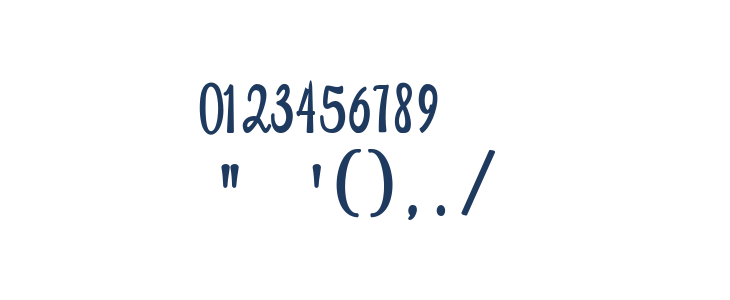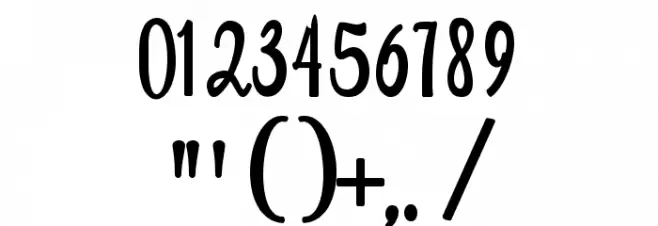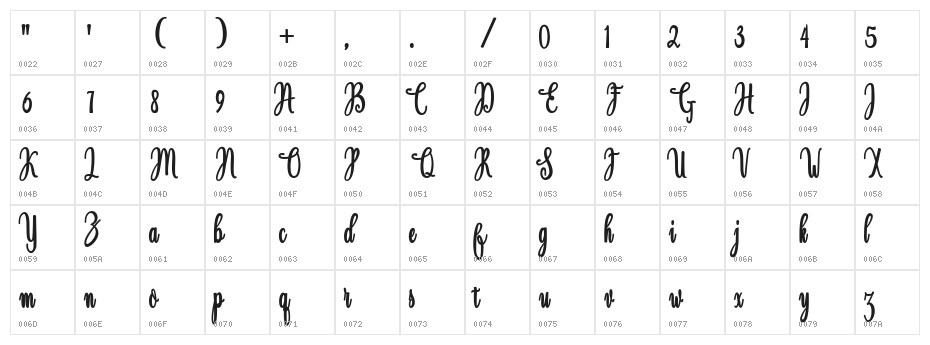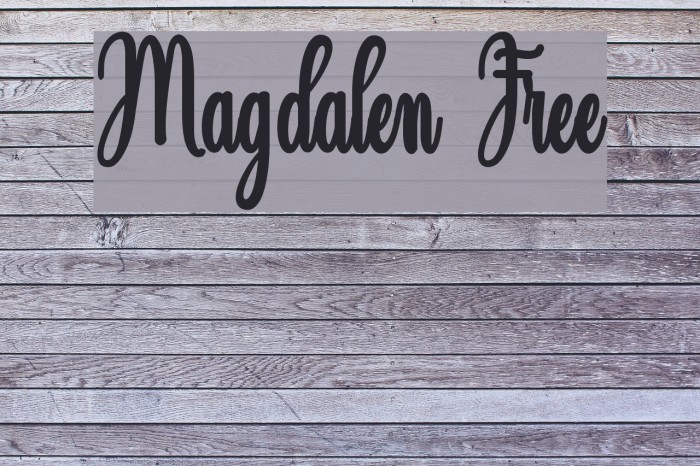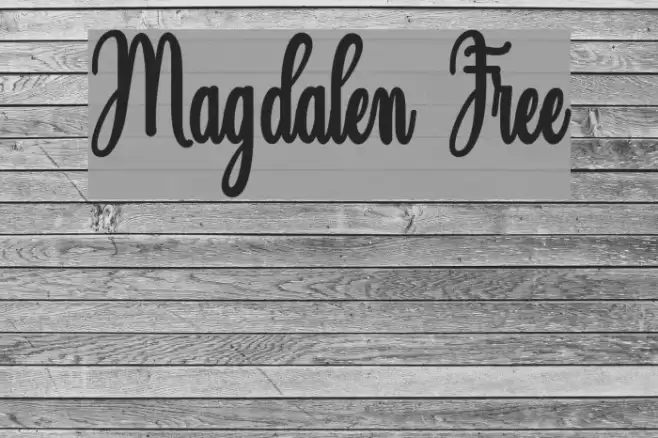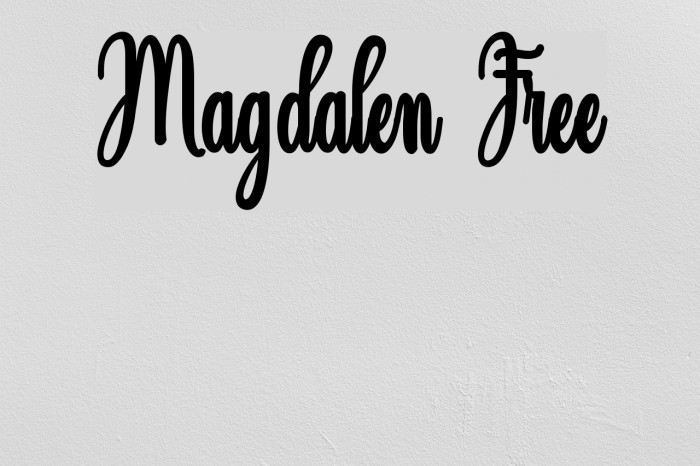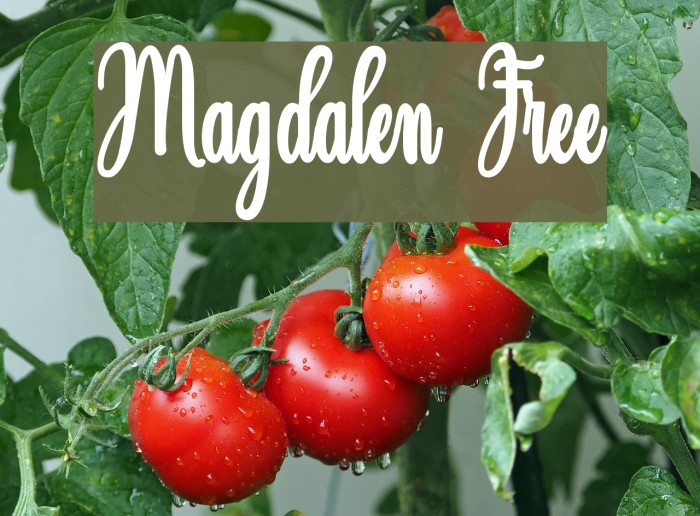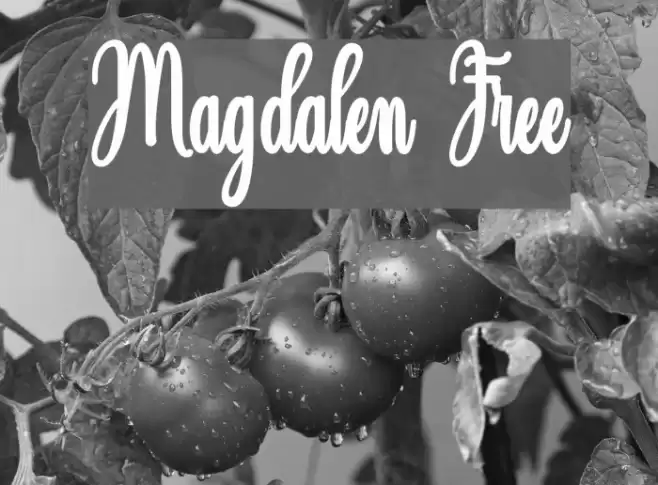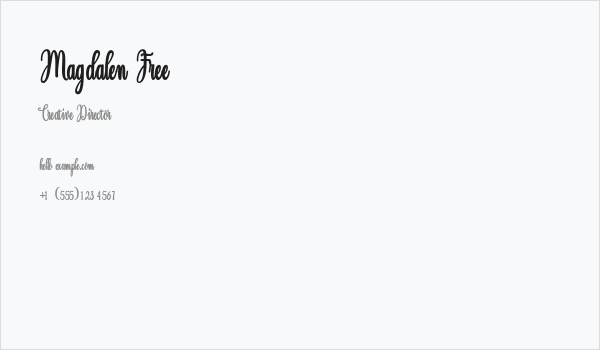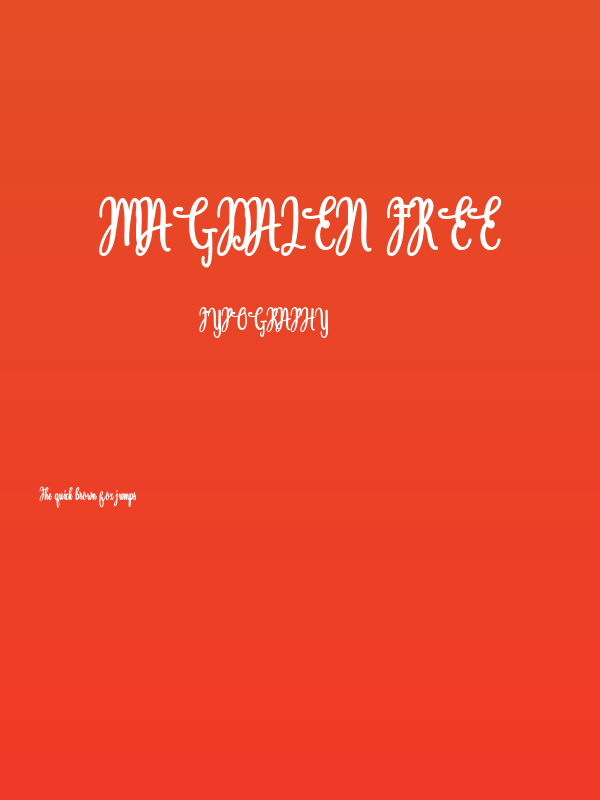
Magdalen Free Font
Magdalen Free Description
This font features a decorative, cursive style with elegant loops and flourishes that give it a sophisticated and artistic appearance. The uppercase letters are bold and flowing, with intricate swirls that add a touch of whimsy. The lowercase letters maintain a consistent style, with smooth, connected strokes that enhance readability while preserving the font's ornamental nature. Numbers and special characters are designed to match the overall aesthetic, ensuring a cohesive look across all text elements. The font's playful yet refined design makes it suitable for a variety of creative applications.
| Proposed Projects | Ideal for wedding invitations, greeting cards, branding, and artistic projects. |